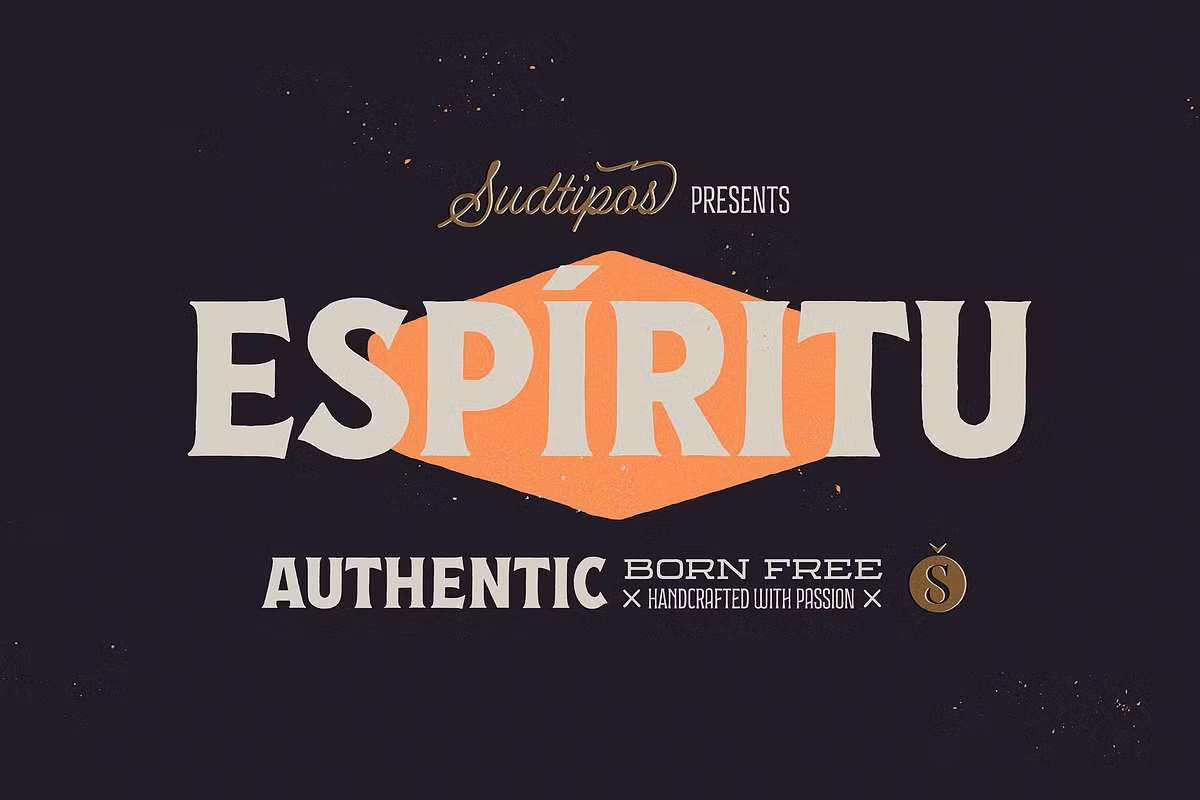
Espiritu Font Set Free Download is a unique and expressive typeface collection that blends artistic flair with modern versatility. Perfect for branding, posters, packaging, and editorial work, this font set includes multiple styles that let you build bold, creative, and cohesive designs with ease.
With elegant curves, stylish ligatures, and thoughtful detailing, Espiritu Font Set Free Download offers designers a wide range of creative options. Whether you're aiming for a high-fashion look or a handcrafted, soulful vibe, this font set adapts beautifully to your vision. Download it today to experiment with its potential in mockups—then upgrade to a commercial license when you’re ready to bring your project to life.